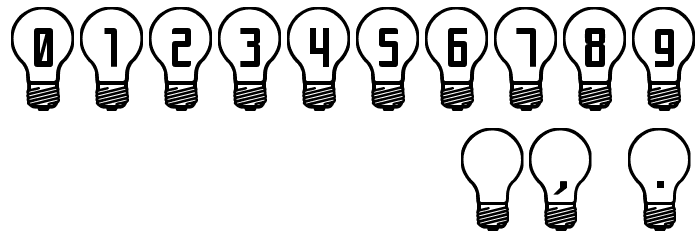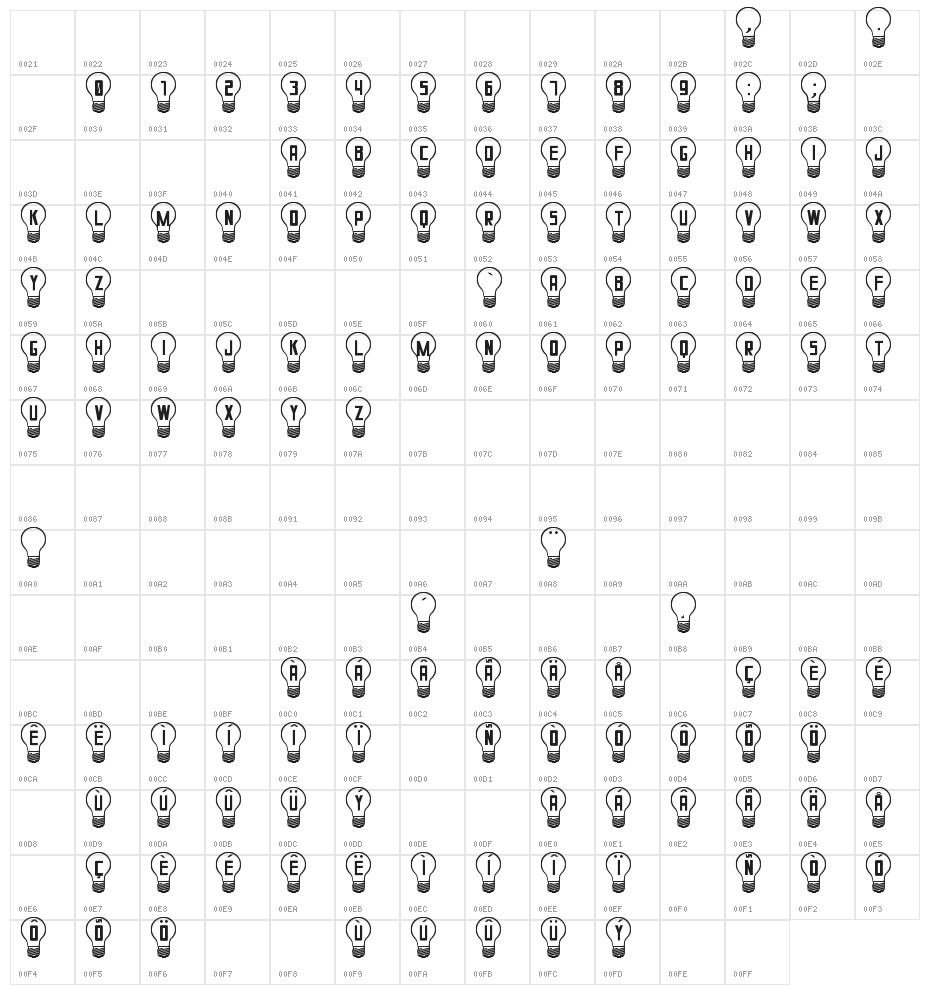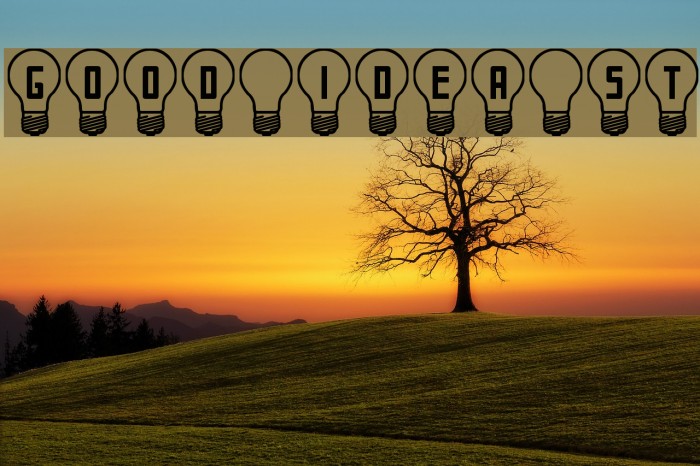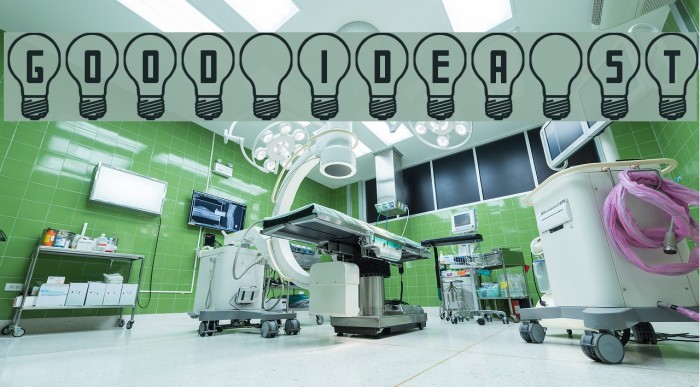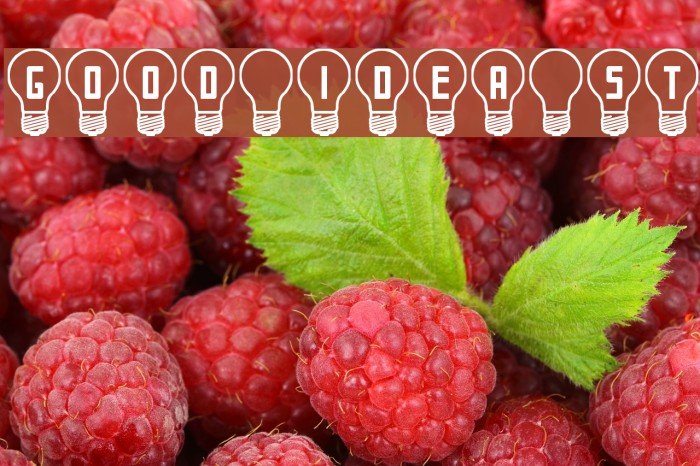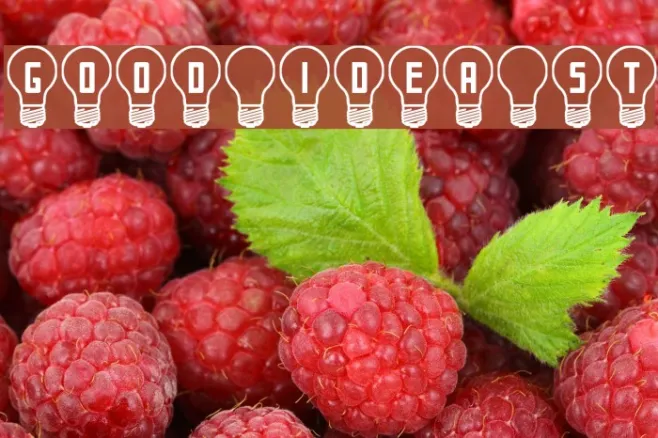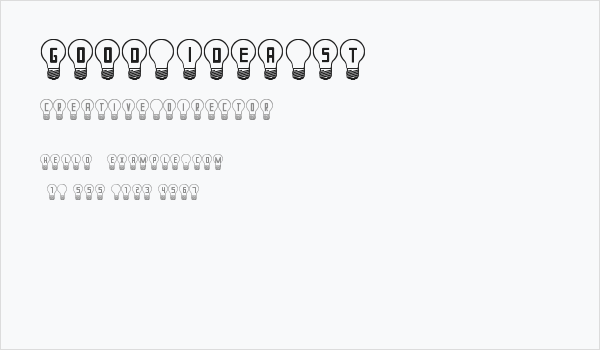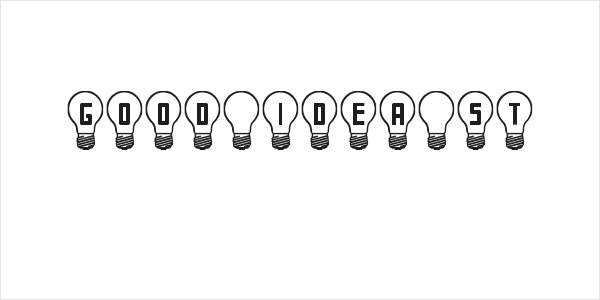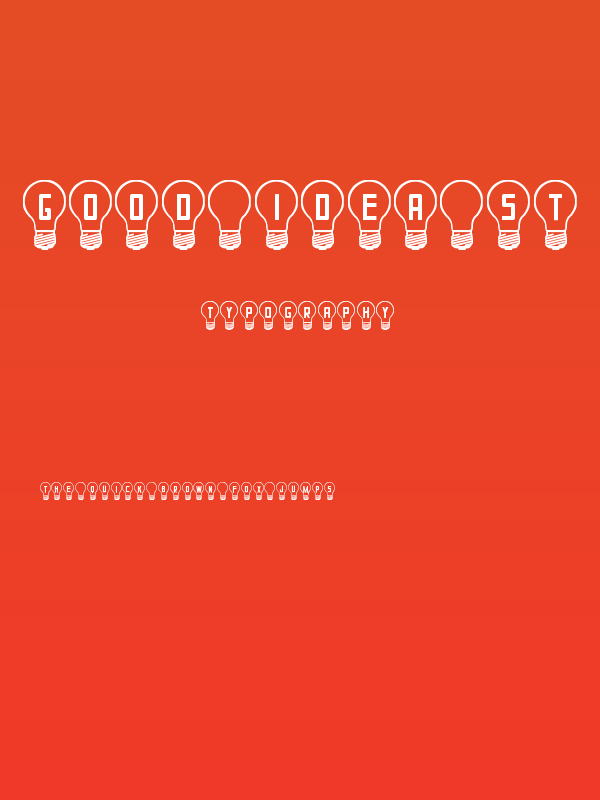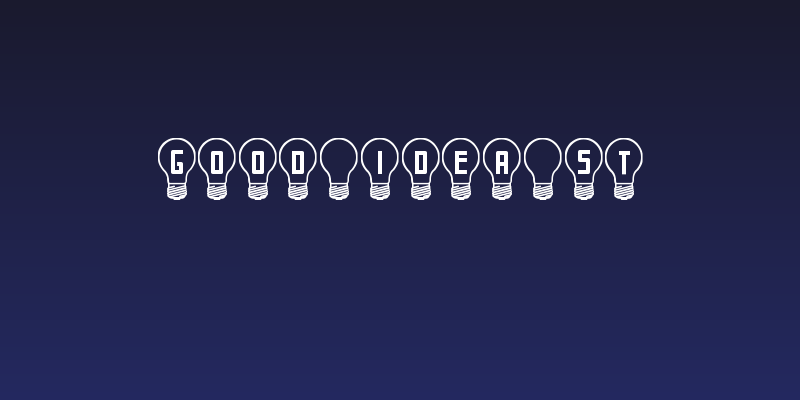
Good Idea St Font
Good Idea St Description
This unique and playful font features characters enclosed within light bulb shapes, creating a distinctive and eye-catching design. Each letter and number is neatly centered inside the bulb, with a bold, sans-serif style that ensures readability while maintaining a whimsical appearance. The consistent use of the light bulb motif across all characters adds a cohesive and thematic element, making it ideal for projects that aim to convey creativity, innovation, or bright ideas. The font's design is both modern and decorative, with a strong visual impact that can capture attention in various contexts.
Overall StyleModern, Decorative
Proposed ProjectsPerfect for branding, advertising campaigns, educational materials, or any project that emphasizes creativity and innovation.